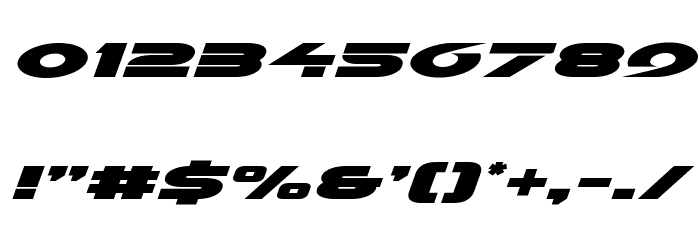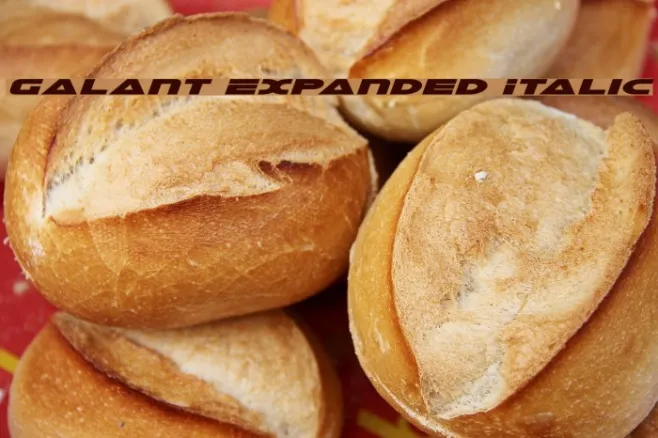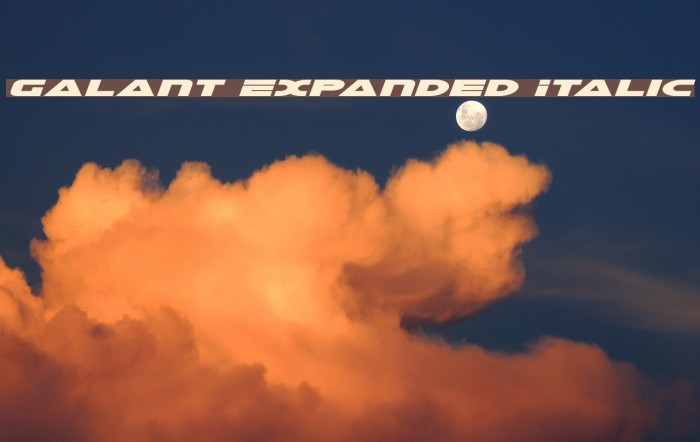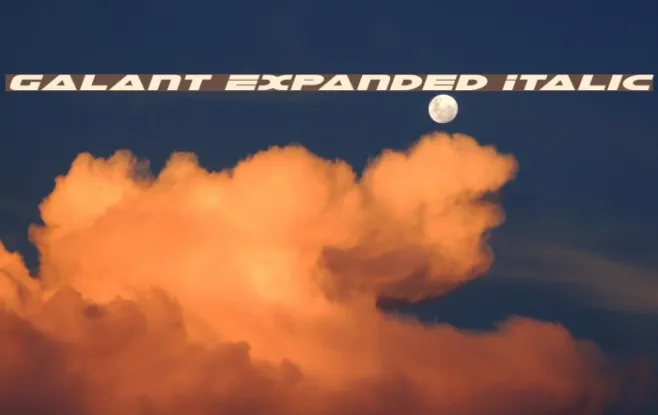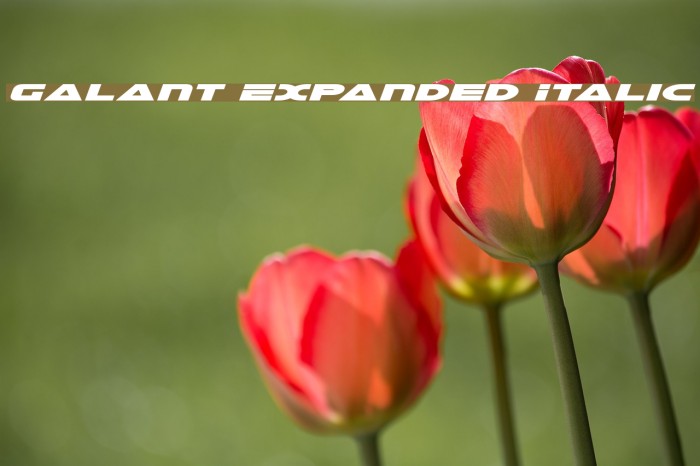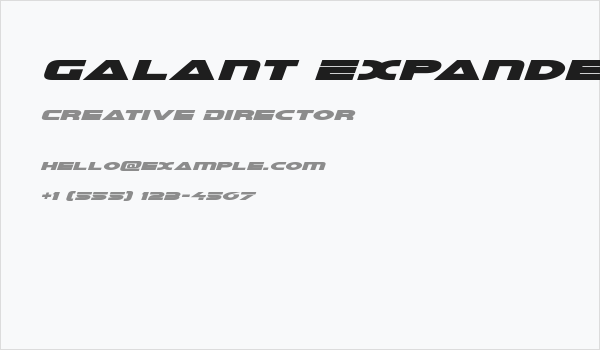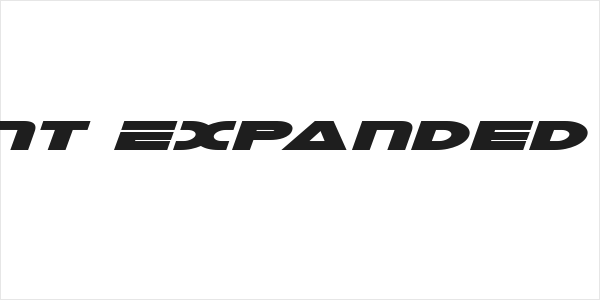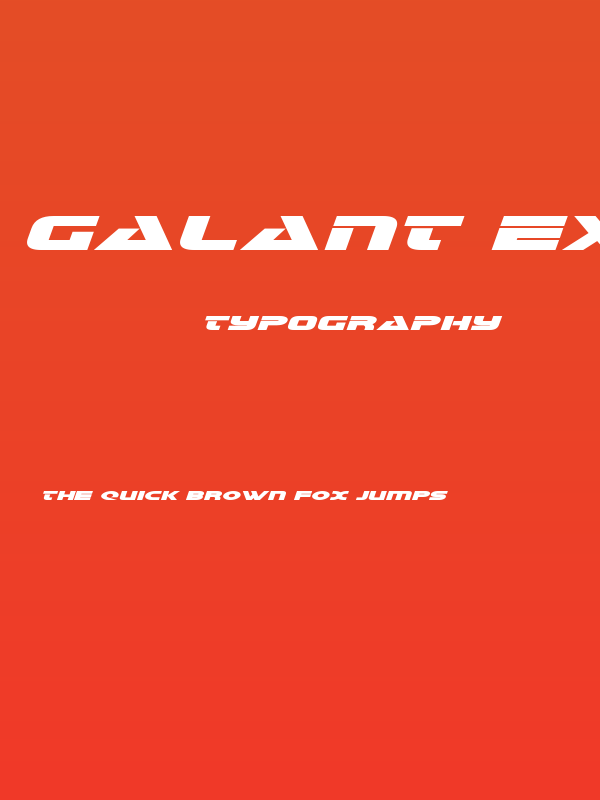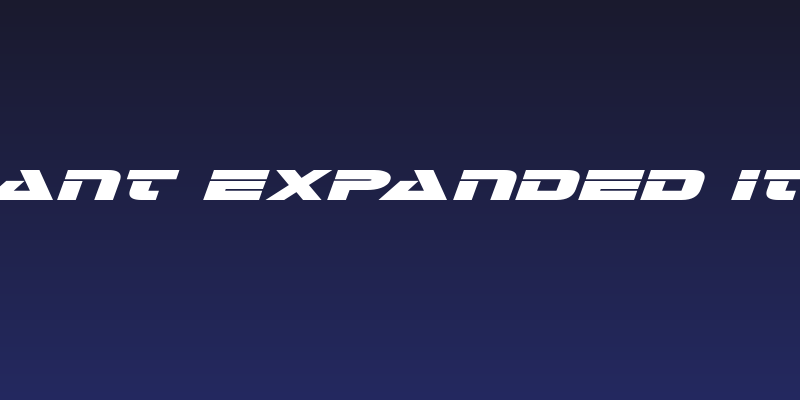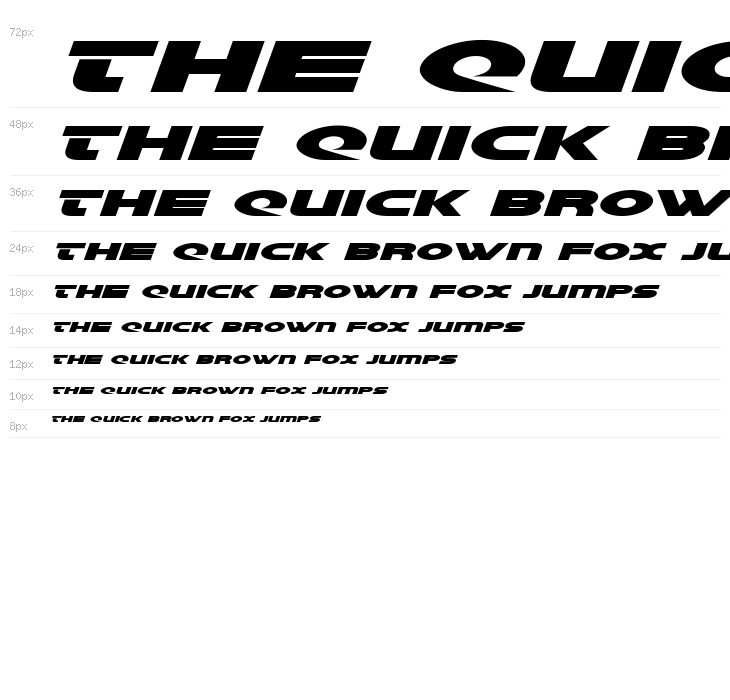
Galant Expanded Italic Font
Galant Expanded Italic Description
This font features a bold and dynamic style with an italic slant, creating a sense of motion and energy. The characters are expanded, giving them a wide appearance that enhances their presence on the page. The design incorporates sharp angles and clean lines, contributing to a modern and futuristic aesthetic. The uppercase and lowercase letters maintain a consistent style, while the numerals and special characters complement the overall look. This font is ideal for projects that require a strong, impactful visual statement.
Proposed ProjectsIdeal for branding, sports team logos, automotive designs, and futuristic-themed projects.